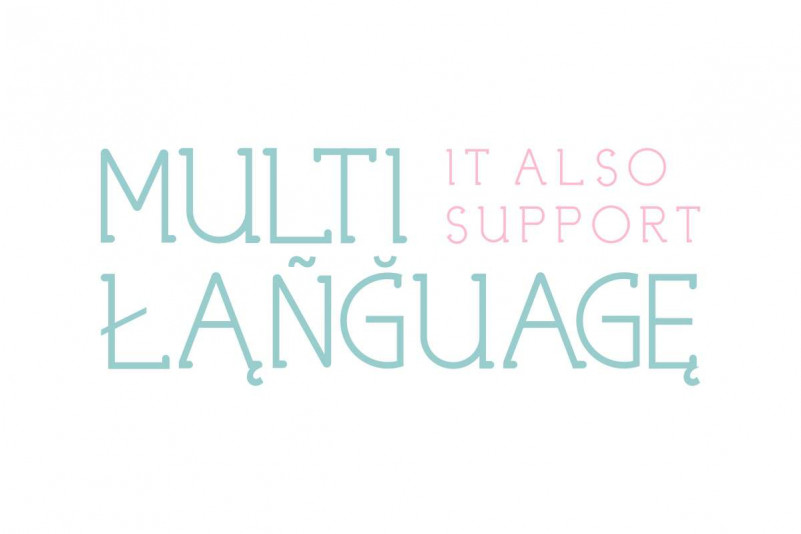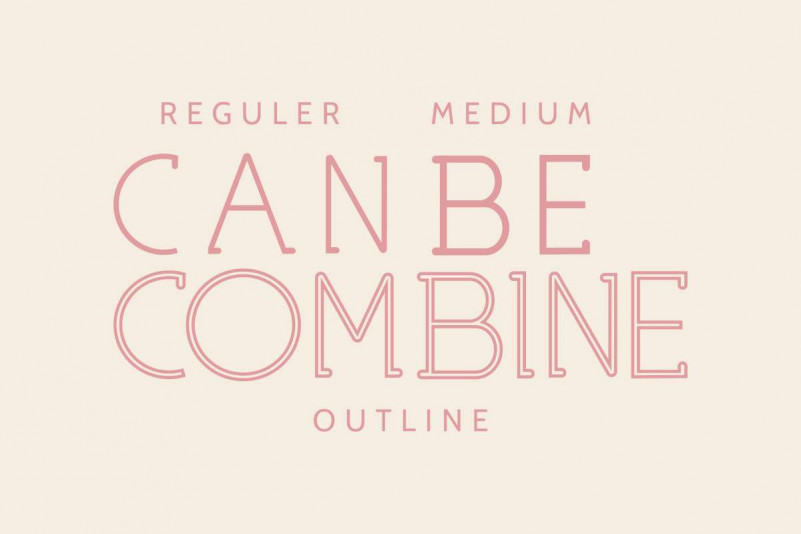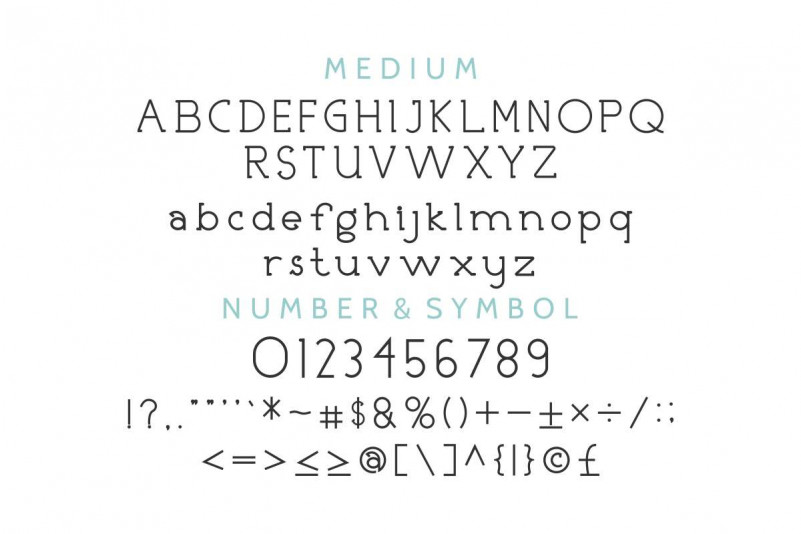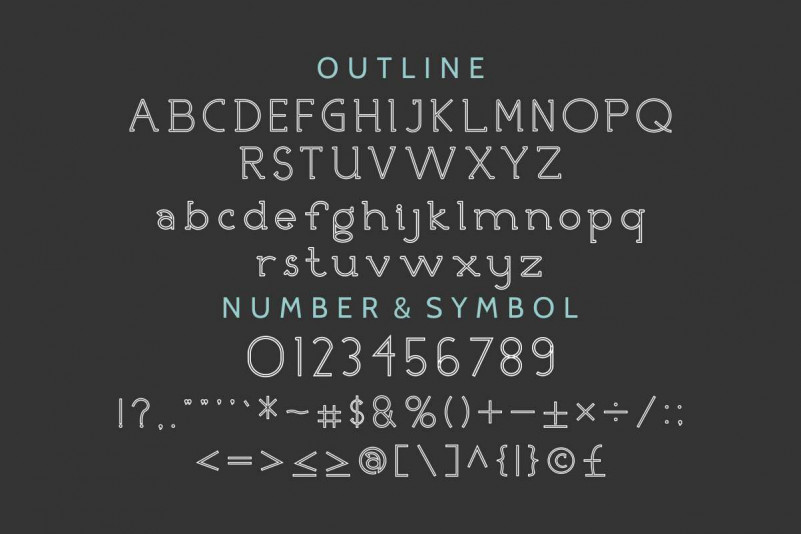
Nicolls Font Family
Please meet our newest font : Nicolls Font Family! This is a new modern sans display with feminine style font. It has a fresh, elegant, unique and stylish glyph.